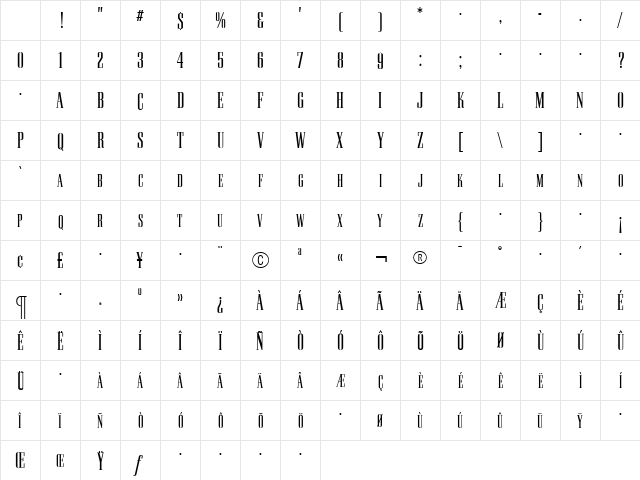
Complete PallMallLightTitling Roman glyph index. Displaying only characters natively supported by PallMallLightTitling Roman font.
PallMallLightTitling is a composed and adaptable typeface that performs quietly and consistently across a wide range of design contexts. Its slender proportions lend an understated elegance to any composition.